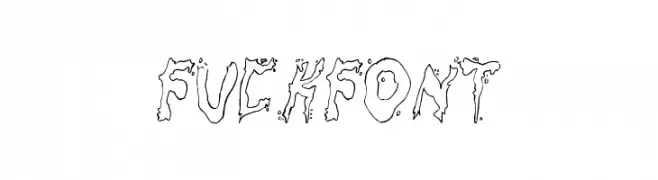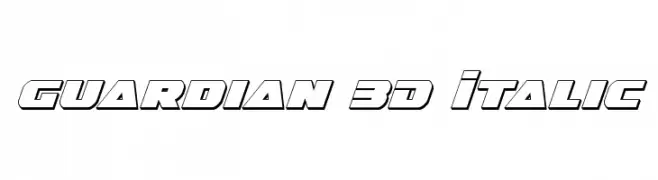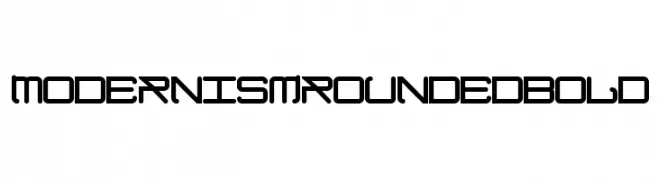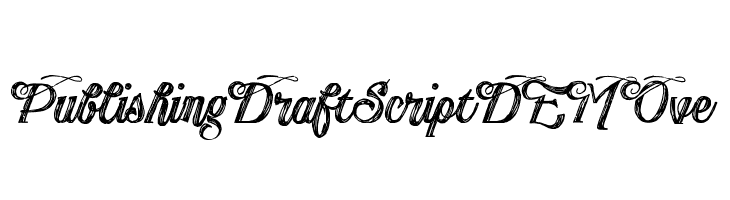
A modern serif font with elegant, rounded serifs and a balanced design.
A whimsical font with uppercase letters encased in angelic bear designs.
A playful serif font with uneven strokes and a hand-drawn feel.
A collage-style font with a mix of eclectic and distressed characters.
A bold, playful font with thick, rounded strokes and a whimsical appearance.
A bold, 3D italic font with a modern, geometric style.
A modern, rounded, and bold font with geometric precision.
A bold, decorative font with a stamped texture and vintage appeal.